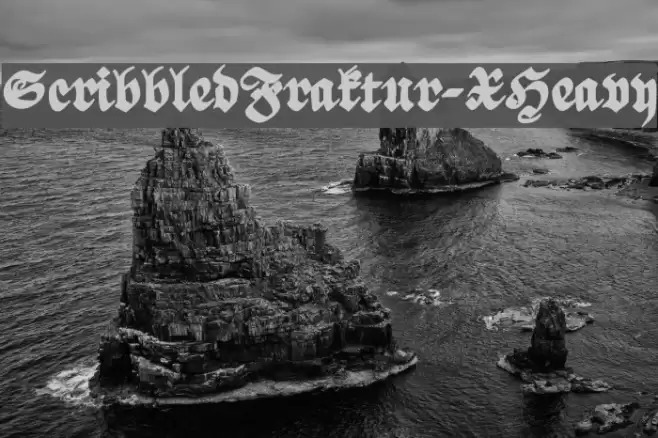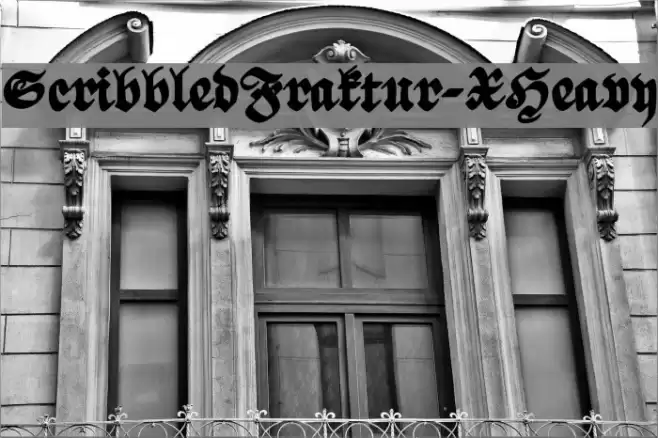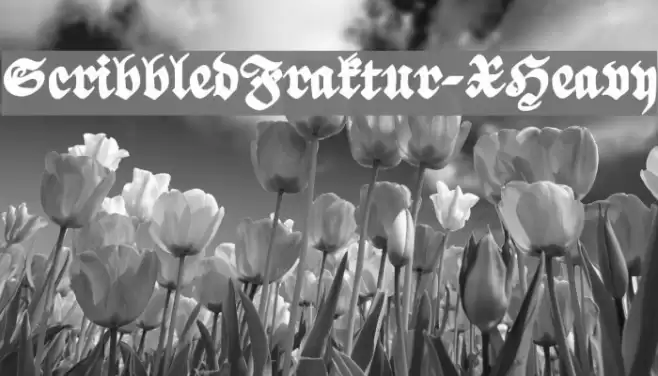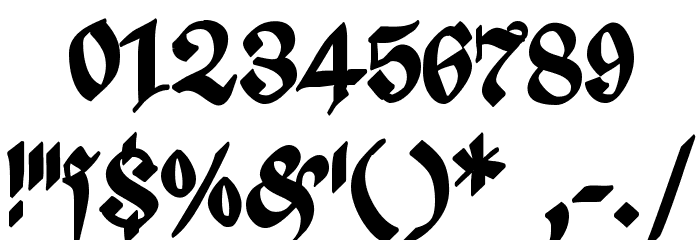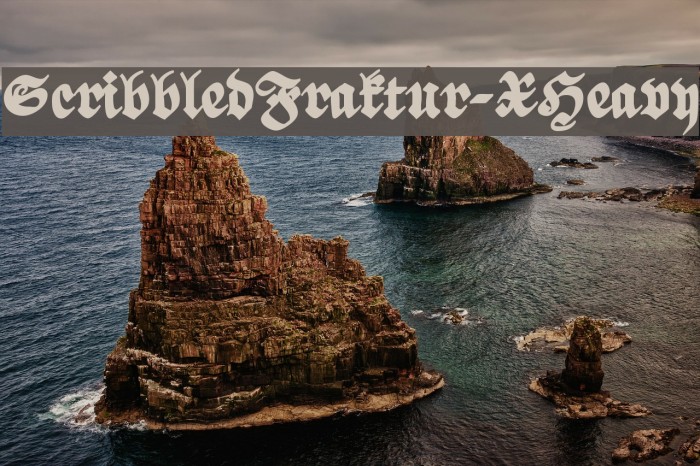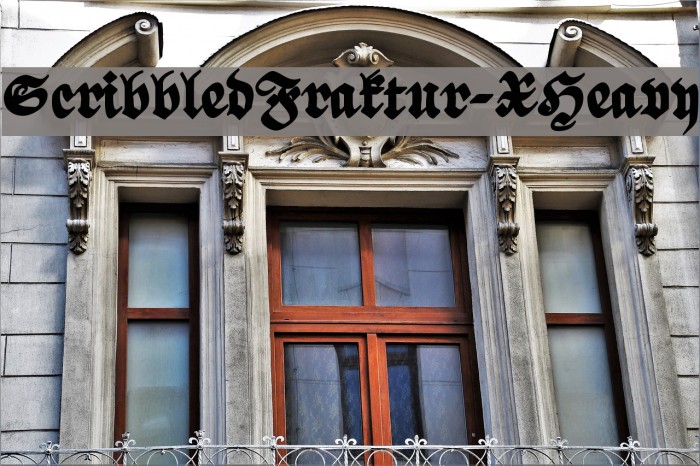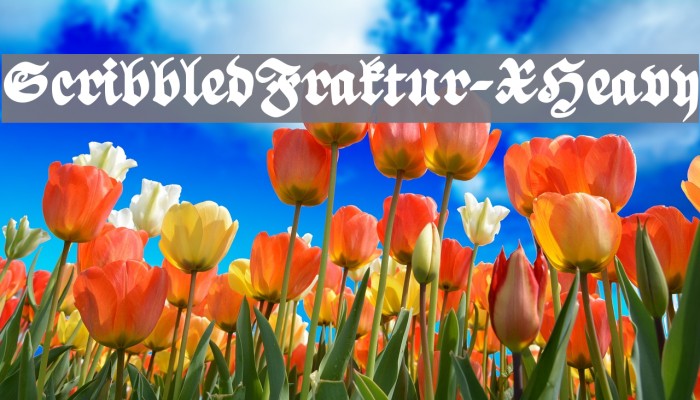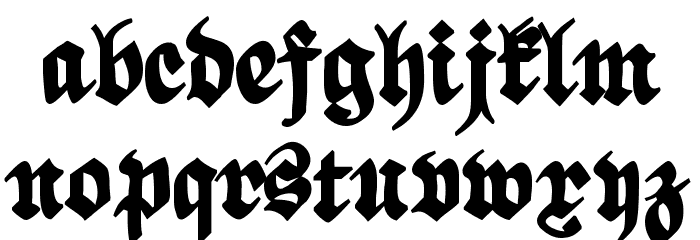
ScribbledFraktur-XHeavy Font
ScribbledFraktur-XHeavy Description
This font features a bold, intricate design reminiscent of traditional blackletter styles. Each character is crafted with sharp, angular lines and elaborate flourishes, giving it a dramatic and historical appearance. The uppercase letters are particularly ornate, with sweeping curves and pointed edges that convey a sense of grandeur. The lowercase letters maintain the decorative style while offering slightly more readability. Numbers and special characters are consistent with the overall aesthetic, ensuring a cohesive look across all text. This font is ideal for projects that require a touch of elegance and historical flair.
A bold, intricate blackletter style with dramatic, ornate characters from Uncategorized fonts.
- Proposed Projects: Ideal for historical documents, invitations, certificates, or branding that requires a classic and elegant touch.
- Overall Style: Vintage